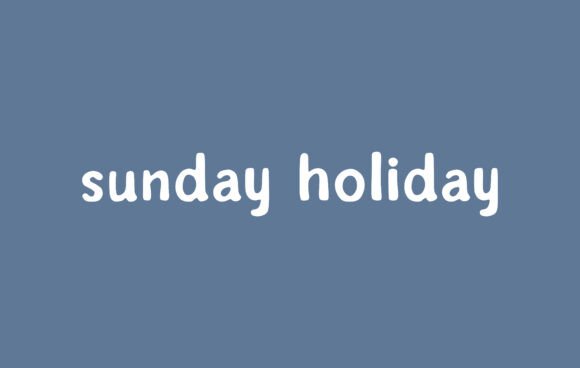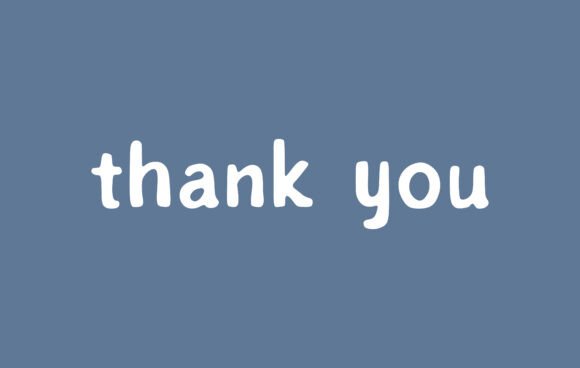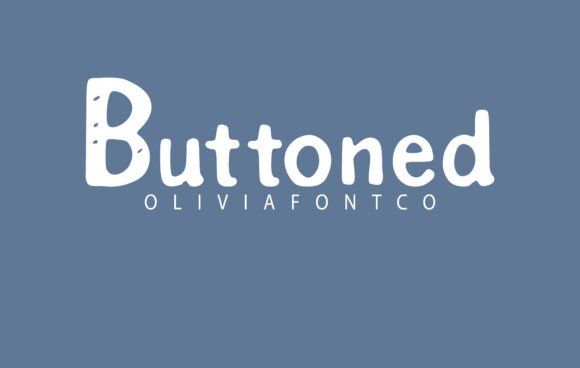
Introducing Buttoned Font: The Ultimate Handwritten Font for Creative Projects
Are you tired of using the same old fonts for your creative projects? Look no further than Buttoned Font, an authentic handwritten font with a romantic touch that’s sure to take your designs to the next level. Expertly designed to be a true favorite among designers and crafters, Buttoned Font is the perfect choice for anyone looking to add a personal touch to their work.
What Makes Buttoned Font So Special?
Buttoned Font is more than just a font – it’s an experience. With its unique blend of elegance and playfulness, this font is sure to capture the hearts of anyone who sees it. Whether you’re designing a wedding invitation, a social media post, or a magazine headline, Buttoned Font is the perfect choice. Its romantic touch adds a level of sophistication and whimsy that’s hard to find in other fonts.
Legibility and Versatility
One of the standout features of Buttoned Font is its legibility. Unlike some handwritten fonts that can be difficult to read, Buttoned Font is clear and easy to understand, making it perfect for both title and body text. This versatility is a major advantage for designers and crafters, who can use Buttoned Font in a wide range of projects, from branding and advertising to cards and invitations.
Perfect for a Variety of Designs
So what can you use Buttoned Font for? The possibilities are endless! Here are just a few ideas to get you started:
- Magazine headlines: Add a touch of elegance and sophistication to your magazine with Buttoned Font.
- Social media: Stand out on social media with eye-catching text that’s sure to grab attention.
- Branding: Use Buttoned Font to create a unique and memorable brand identity.
- Wedding invitations: Add a romantic touch to your wedding invitations with Buttoned Font.
- Cards: Create beautiful and personalized cards for any occasion.
Why Choose Buttoned Font?
With so many fonts to choose from, why should you choose Buttoned Font? Here are just a few reasons:
- Unique and authentic: Buttoned Font is a one-of-a-kind font that’s sure to set you apart.
- High-quality design: Buttoned Font is expertly designed to ensure that it looks great in any context.
- Legible and versatile: Buttoned Font can be used for both title and body text, making it a versatile choice for any project.
Tips for Using Buttoned Font
Here are a few tips for getting the most out of Buttoned Font:
- Experiment with different sizes and colors to find the perfect look for your project.
- Use Buttoned Font in combination with other fonts to create a unique and eye-catching design.
- Don’t be afraid to get creative and try new things – Buttoned Font is a versatile font that’s perfect for experimenting with.
In conclusion, Buttoned Font is an amazing handwritten font that’s perfect for designers and crafters who want to add a personal touch to their work. With its romantic touch, legibility, and versatility, Buttoned Font is sure to become a favorite among creatives. Whether you’re designing a wedding invitation, a social media post, or a magazine headline, Buttoned Font is the perfect choice. So why wait? Download Buttoned Font today and start taking your creative projects to the next level!